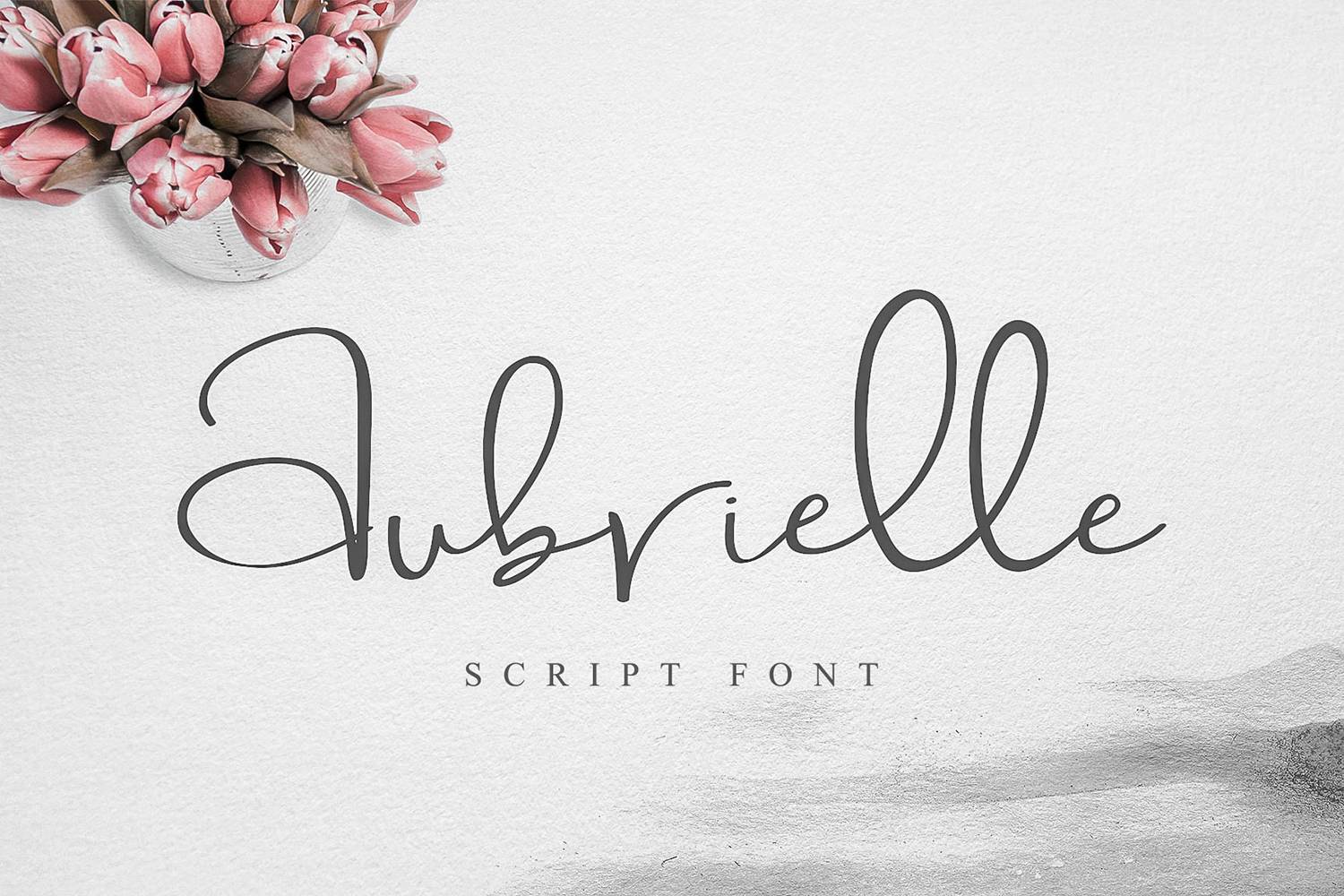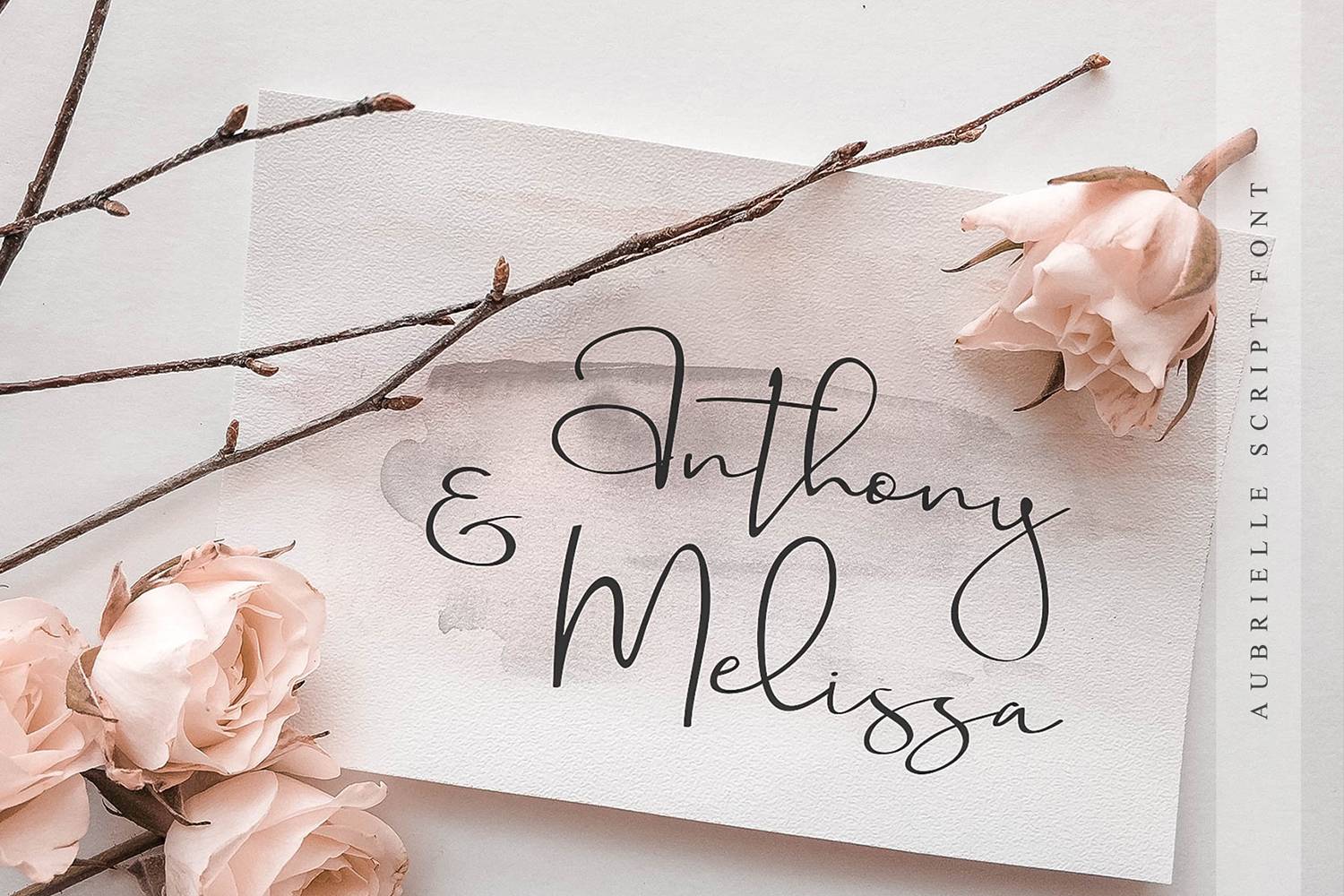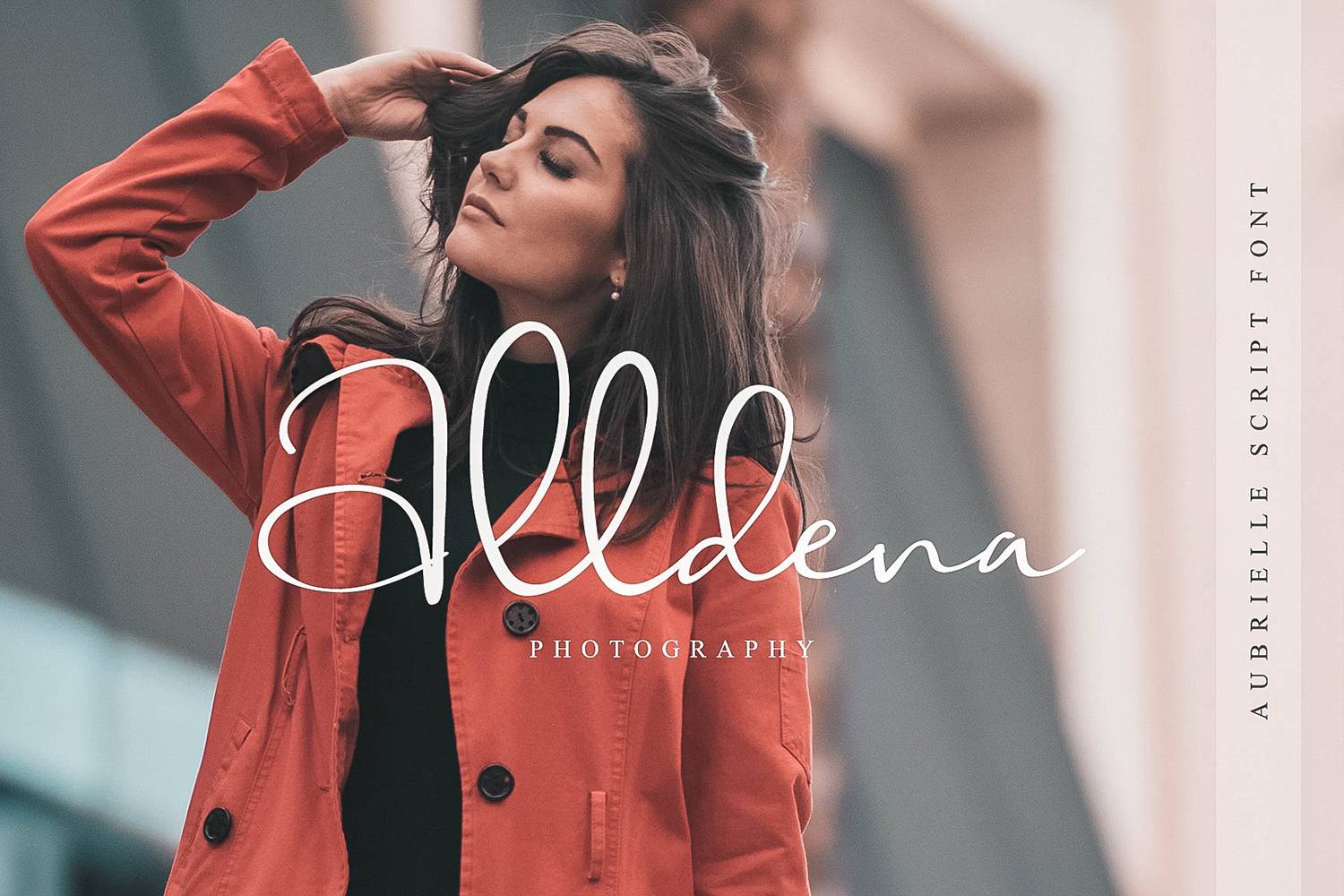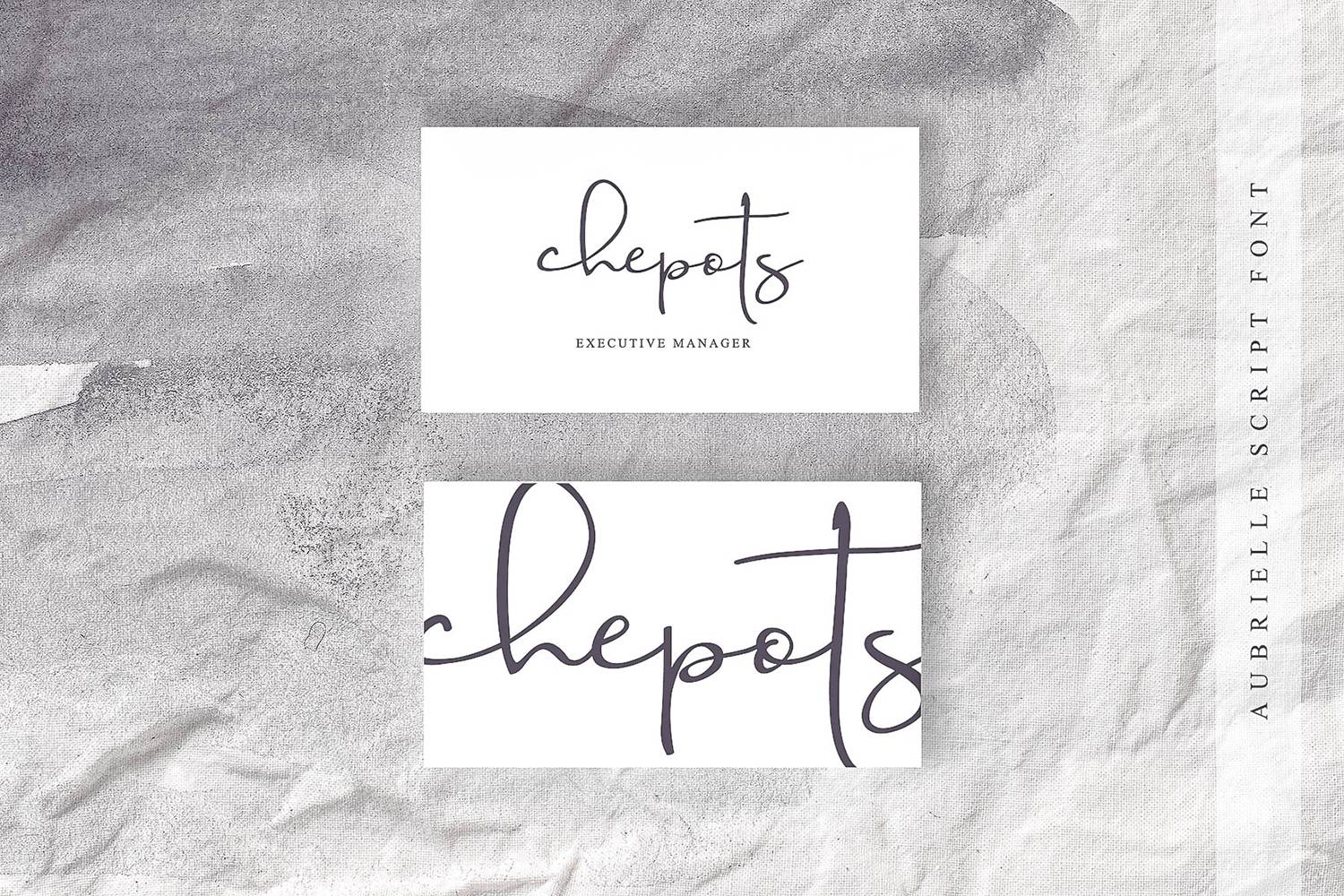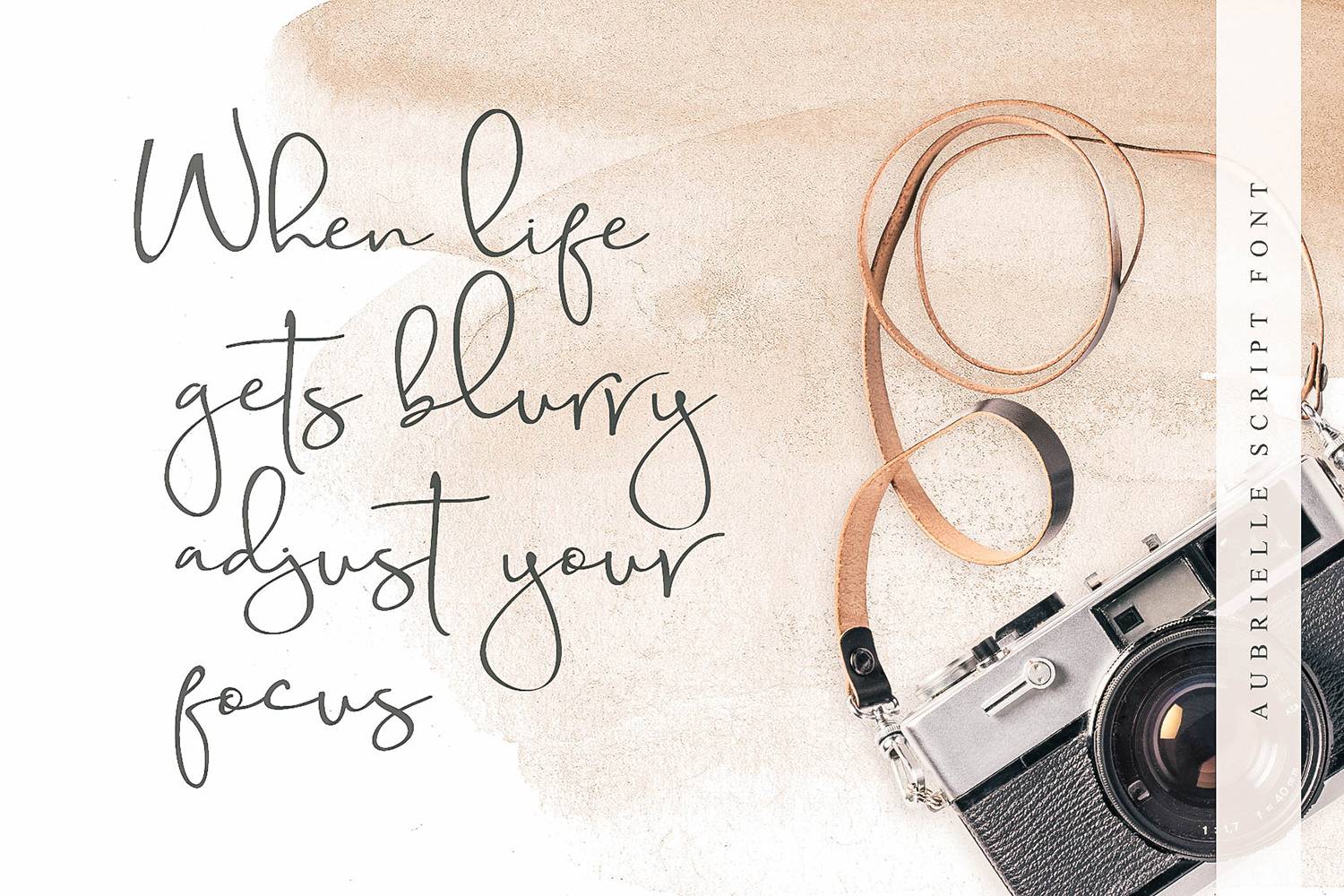
Aubrielle is a delicate and whimsical handwritten script font with thin strokes and elegant, flowing letterforms. Its slender and airy style gives off a playful yet sophisticated vibe, making it perfect for creative branding, invitations, and feminine design projects. This font works beautifully where a personal, artistic touch is desired, especially in logos, greeting cards, and fashion-related visuals.
Aubrielle Font
About Aubrielle Font
| Font family | Aubrielle Font |
| Designer | Awan Setiawan |